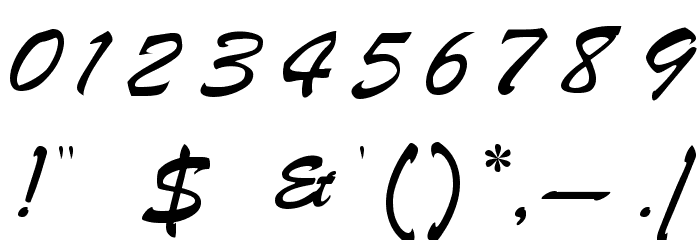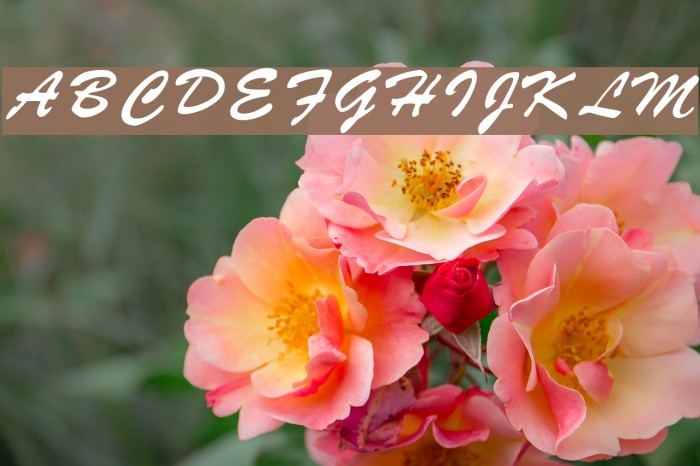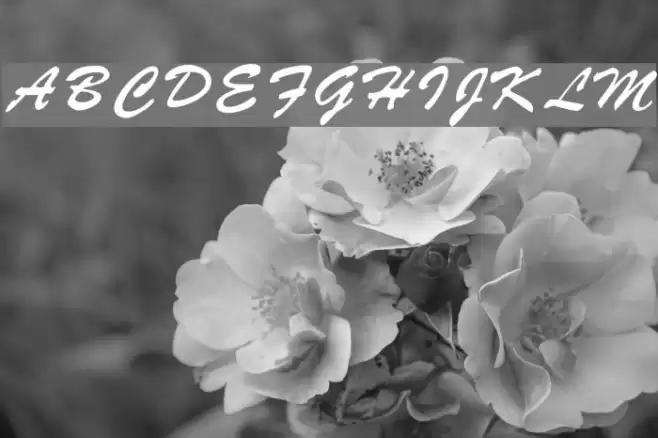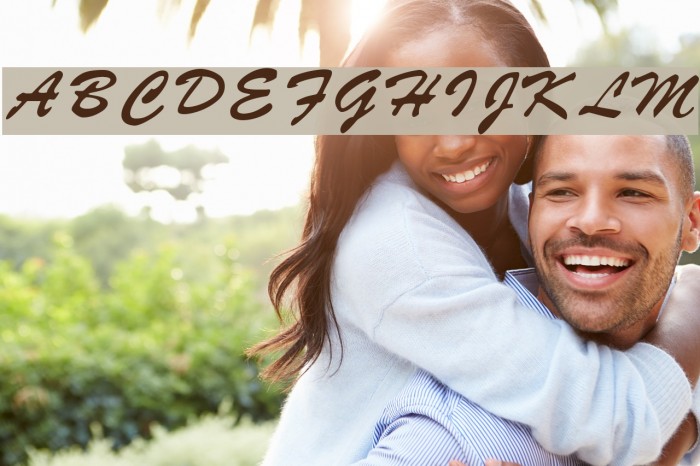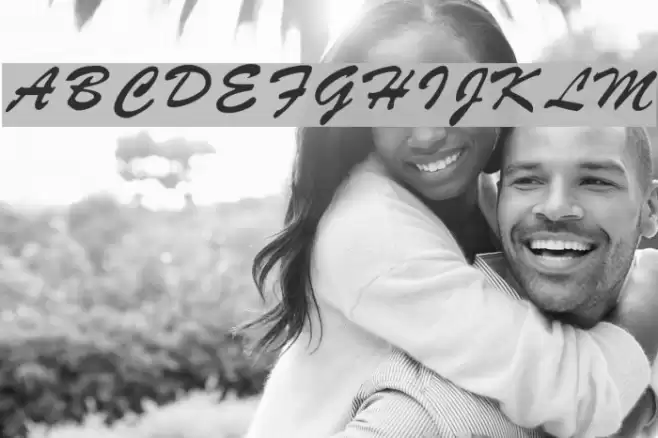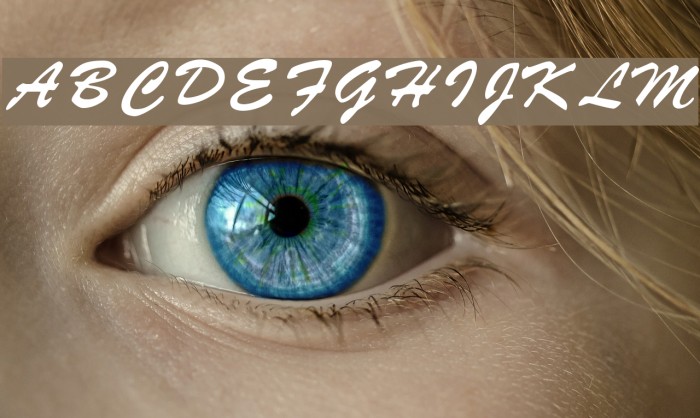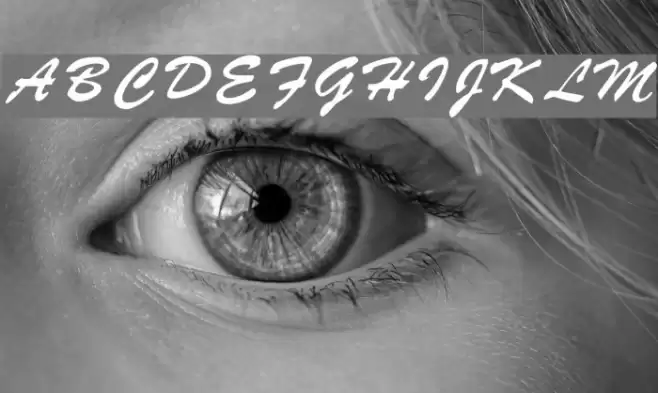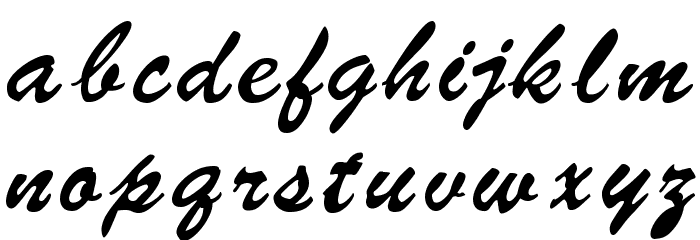
RSStyle Font
RSStyle Description
This font exhibits a dynamic and flowing script style, characterized by its elegant and cursive letterforms. The uppercase letters are bold and slightly slanted, giving a sense of movement and sophistication. The lowercase letters maintain a consistent flow, with smooth connections between characters, enhancing the script's fluidity. Numerals are designed to match the overall cursive style, ensuring uniformity across all characters. Special characters are crafted with the same attention to detail, making them suitable for decorative purposes. The font's overall appearance is both classic and stylish, making it ideal for projects that require a touch of elegance.
| Overall Style | Classic |
| Use Case | Logos, Invitations, Decorative text |
| Proposed Projects | Ideal for wedding invitations, greeting cards, branding, and logo design. |